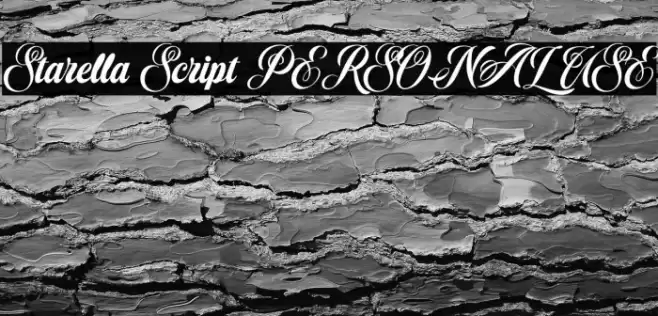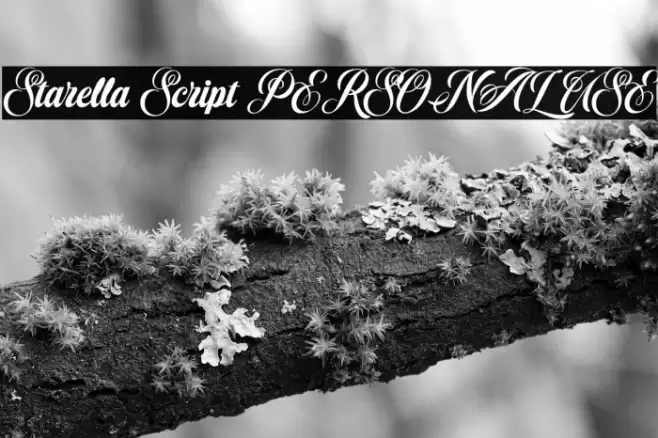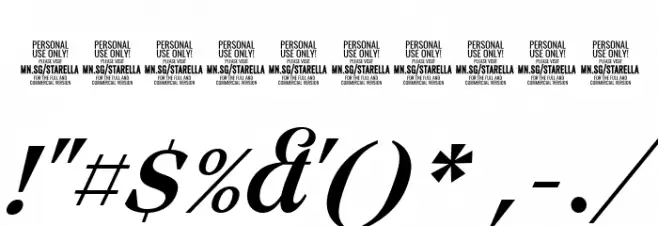
Starella Script PERSONAL USE Font
Starella Script PERSONAL USE Description
This elegant script font features a flowing, cursive style with intricate loops and swashes, particularly in the uppercase letters. The lowercase letters maintain a smooth, connected appearance, enhancing the script's fluidity. The font exudes a sense of sophistication and grace, making it ideal for formal invitations or branding that requires a touch of elegance. The numerals and special characters are designed to complement the overall aesthetic, maintaining the same ornate style. The font's design is consistent throughout, with a balanced weight and moderate contrast in stroke thickness, contributing to its readability and visual appeal.
An elegant, flowing script font with intricate loops and swashes from Regular fonts.
- Proposed Projects: Ideal for wedding invitations, luxury branding, greeting cards, and elegant signage.
- Overall Style: Elegant, Decorative
- Use Case: Logos, Invitations, Branding